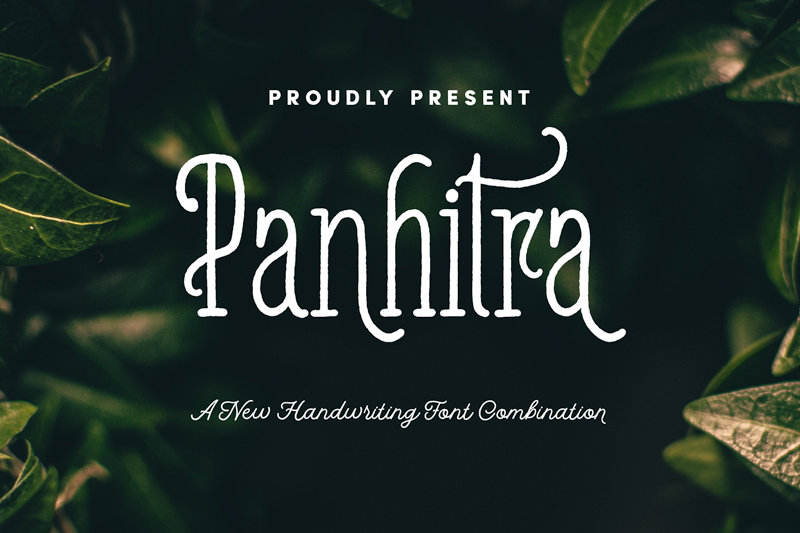
Preview and download Panhitra Font. Created by Ryan Prasetya in Basic Serif styles with Free for personal use license.
Font name: | Panhitra |
Author: | Ryan Prasetya |
panhitra was included 3 fonts that have different styles but perfectly paired when used together. Every single character crafted carefully. Find the full version here https://crmrkt.com/le72Ql or visit my other font here https://creativemarket.com/ryan.prasetya |